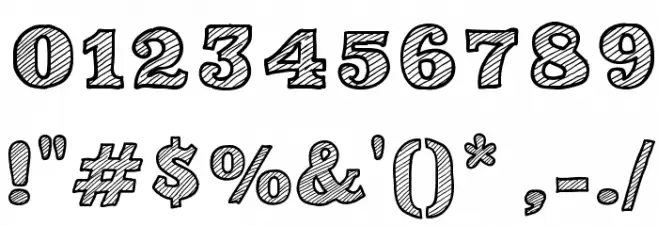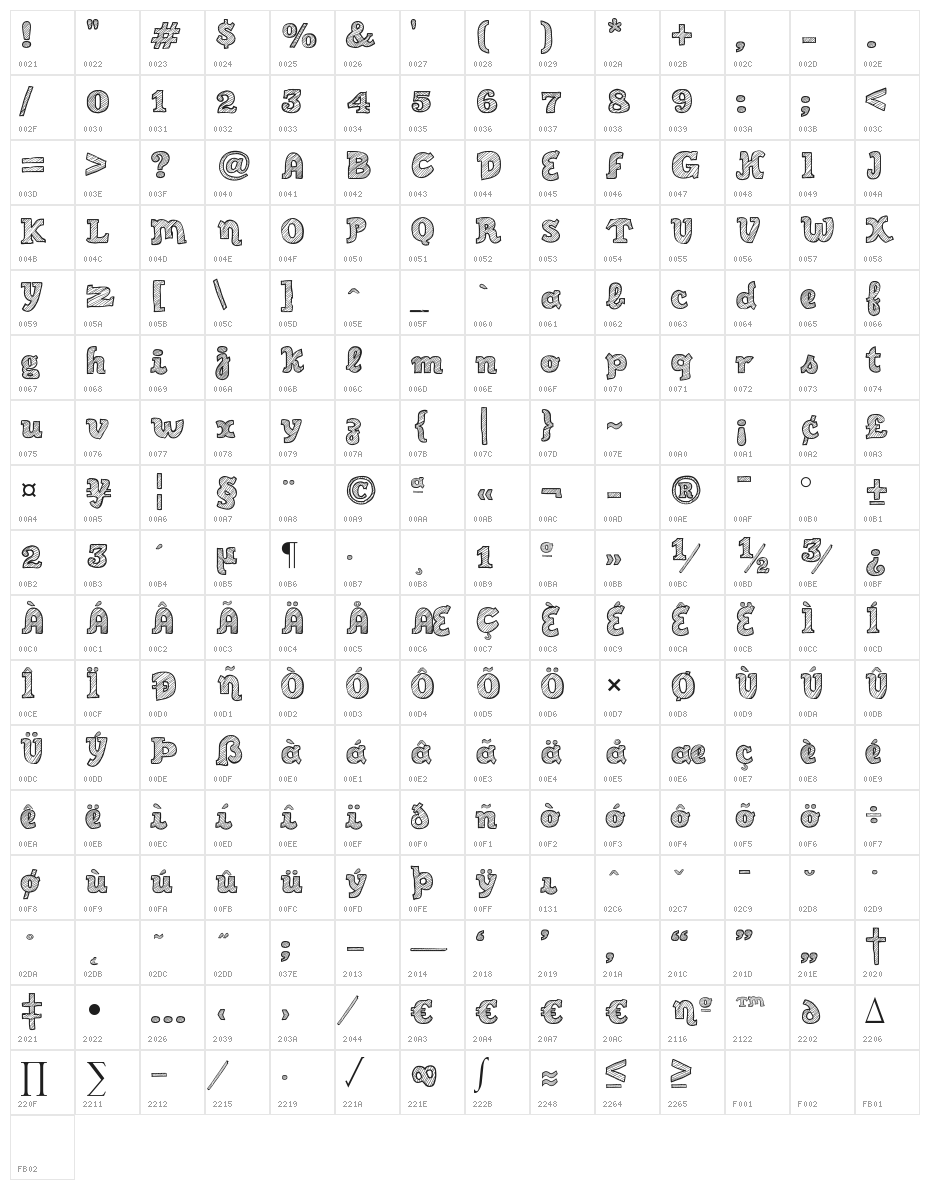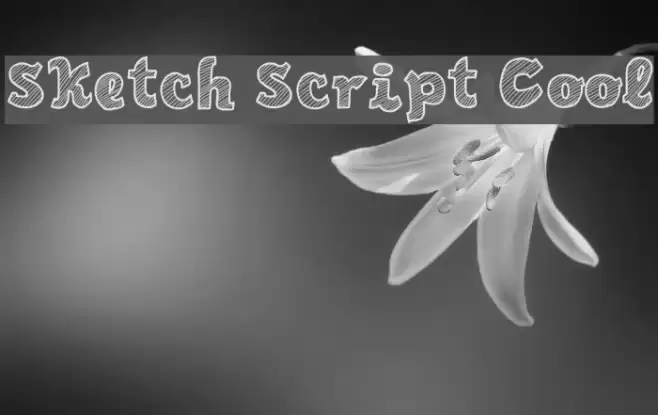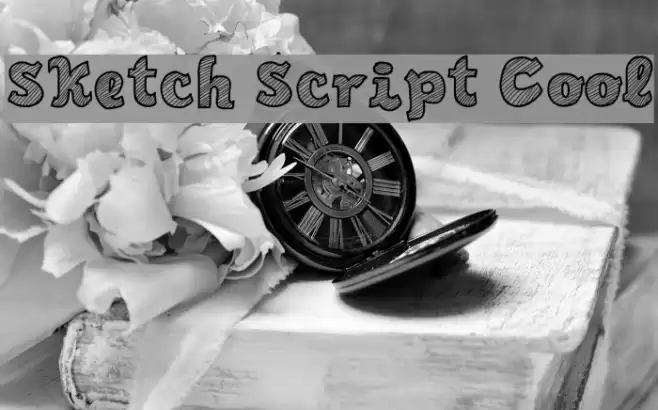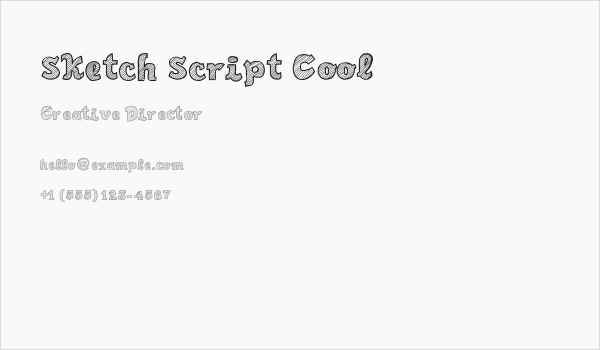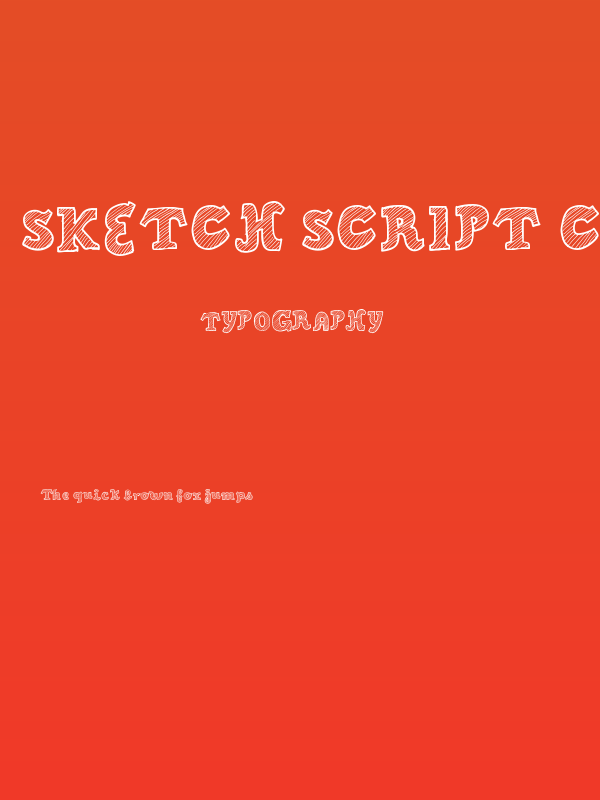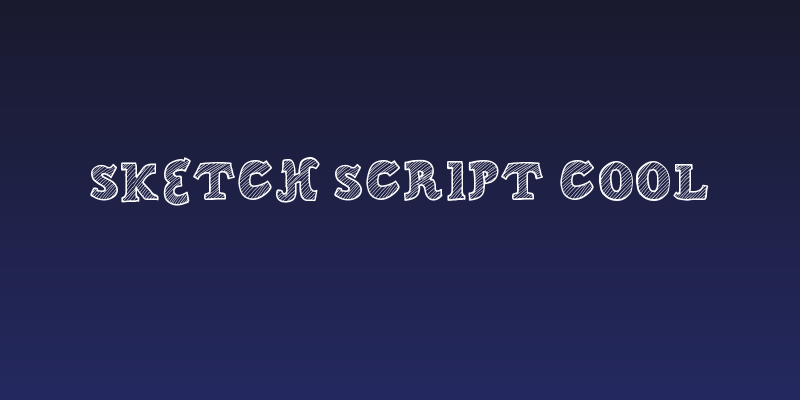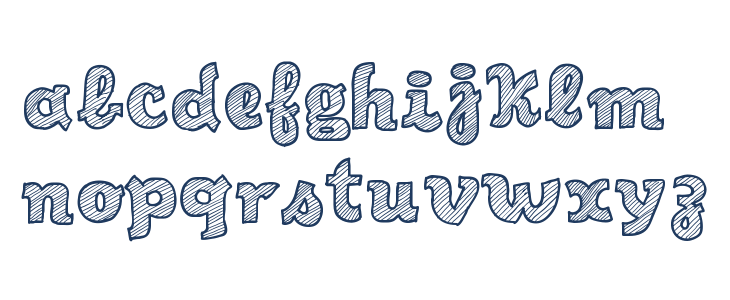
Sketch Script Cool Font
Sketch Script Cool Description
This playful and artistic font features a hand-drawn, sketch-like appearance with bold, rounded characters. Each letter is filled with diagonal hatching, giving it a textured, three-dimensional look. The font maintains a consistent thickness throughout, with a slight slant that adds to its dynamic and informal style. The uppercase and lowercase letters are well-balanced, and the numbers and special characters are designed to match the whimsical feel of the alphabet. This font is perfect for projects that require a creative and fun touch.